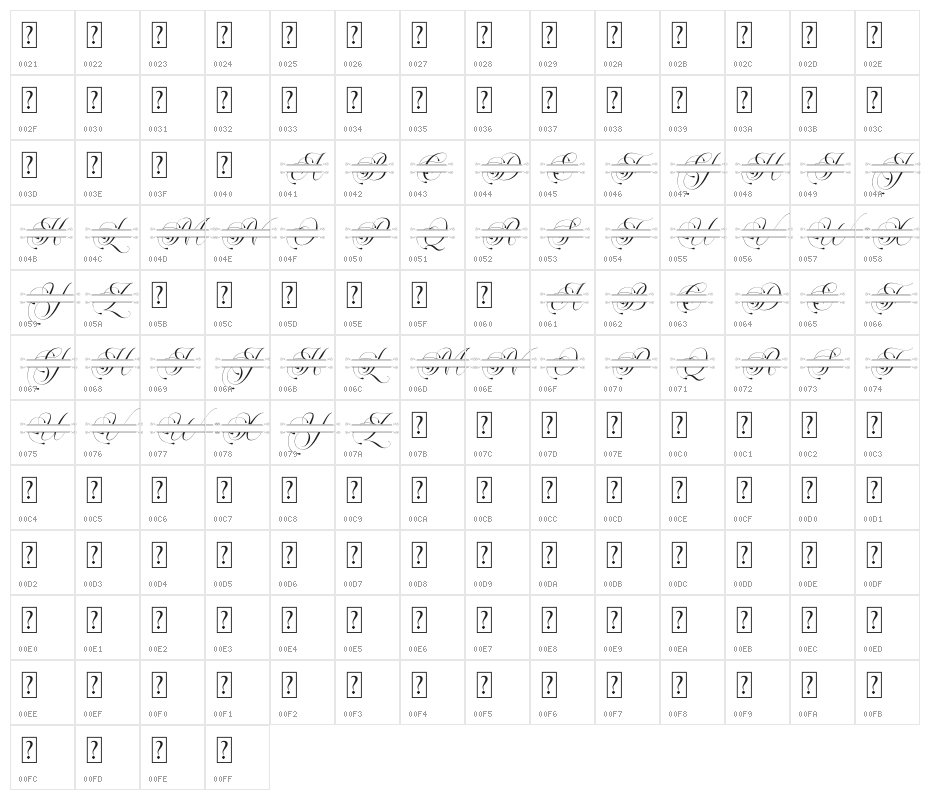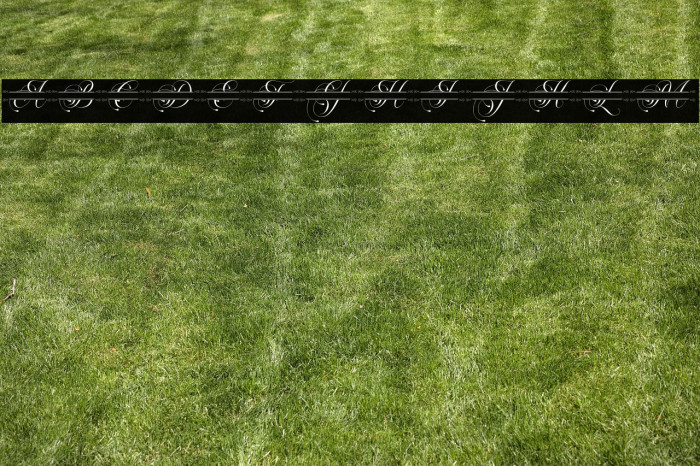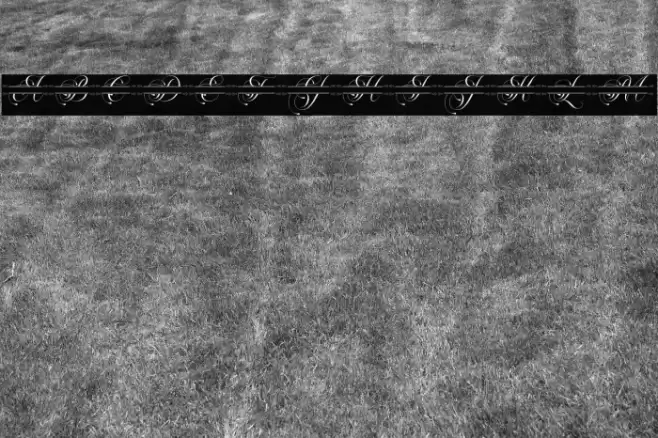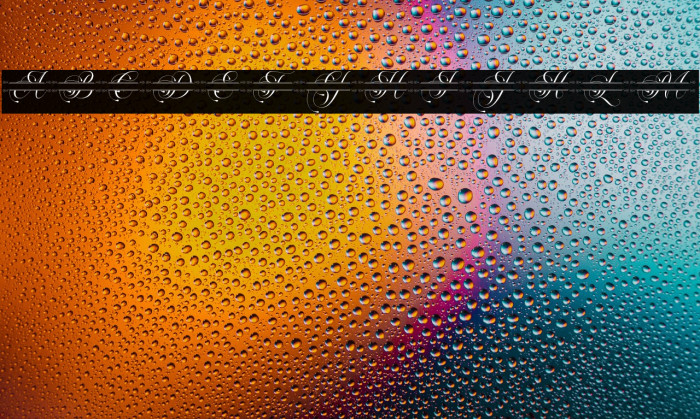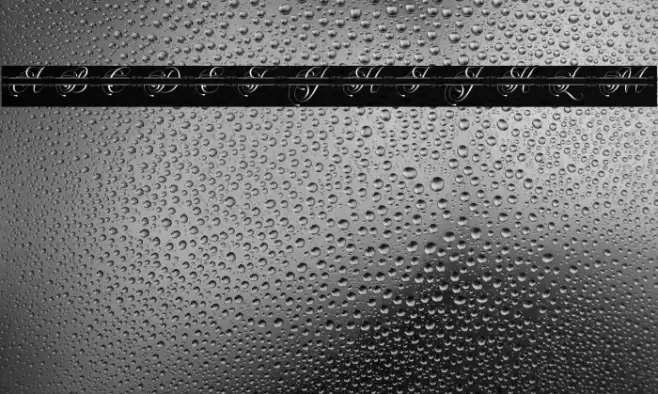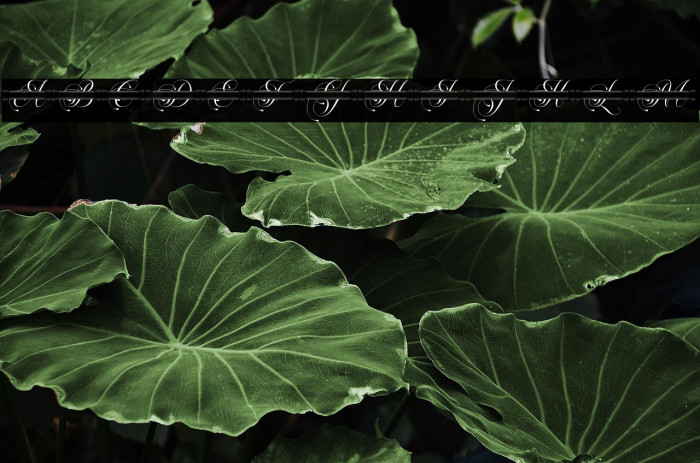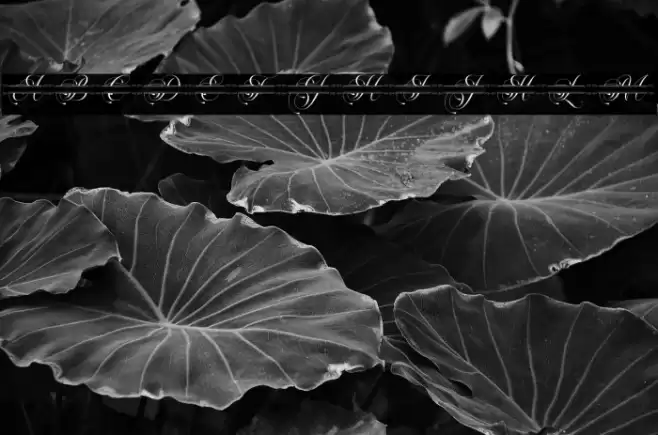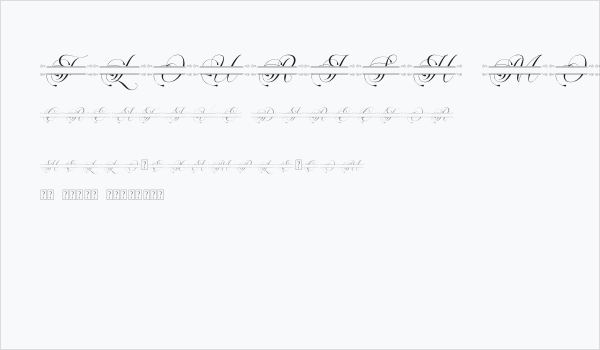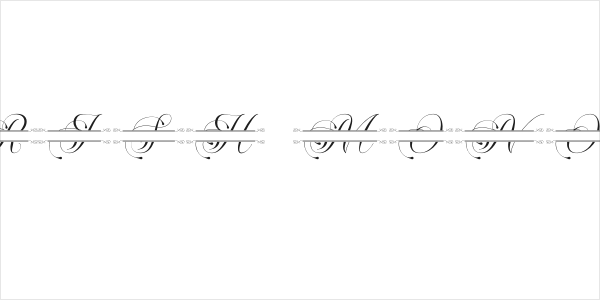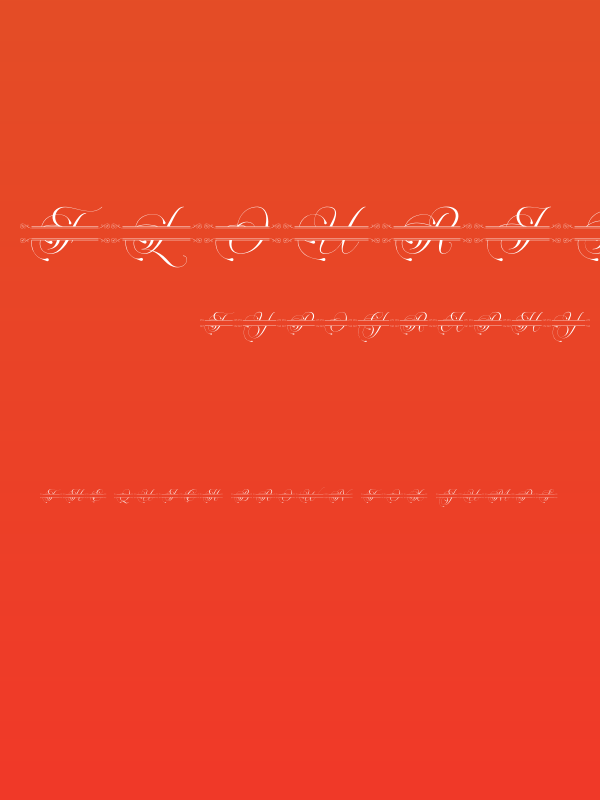
Flourish Monogram Font
Flourish Monogram Description
This font exudes elegance and sophistication with its intricate flourishes and monogram style. Each letter is adorned with delicate swirls and loops, creating a sense of luxury and refinement. The characters are designed with a high level of detail, making them ideal for decorative purposes. The font maintains a consistent style throughout, with each letter seamlessly integrating into the overall design. The use of thin lines and elaborate curves gives it a graceful appearance, perfect for adding a touch of class to any project.
| Use Case | Logos, Invitations, Monograms |
| Proposed Projects | Ideal for wedding invitations, luxury branding, personalized stationery, and decorative monograms. |